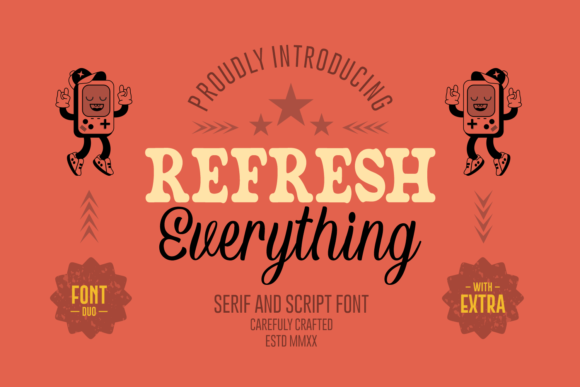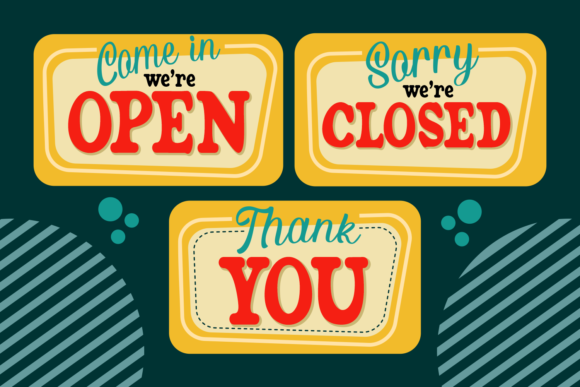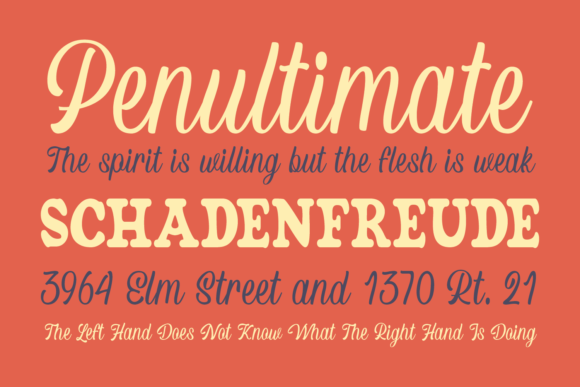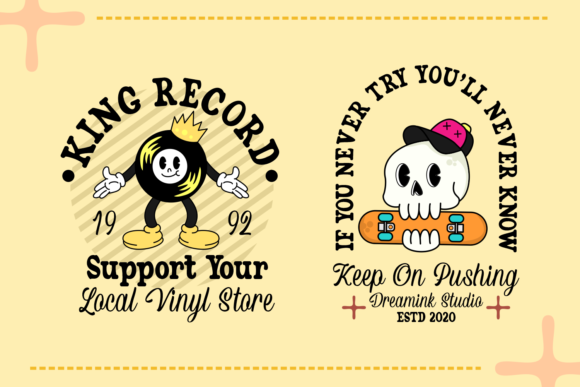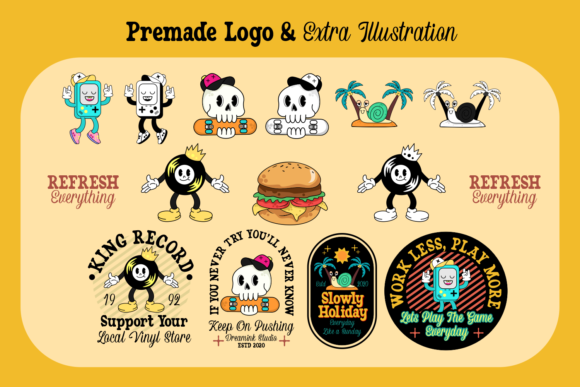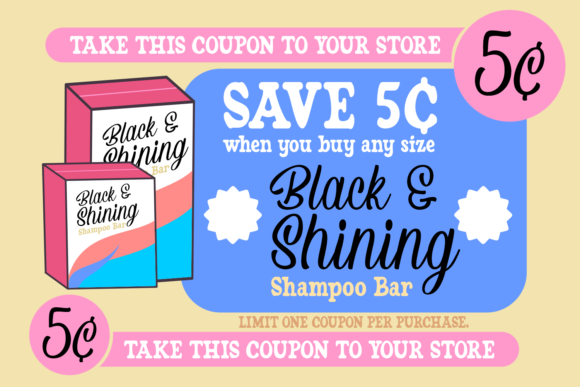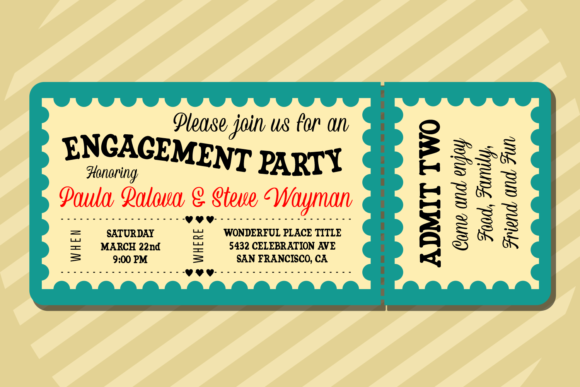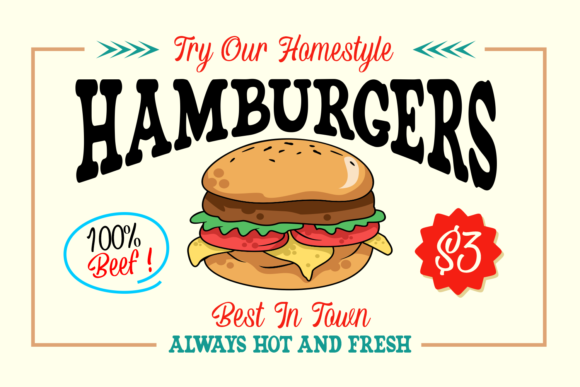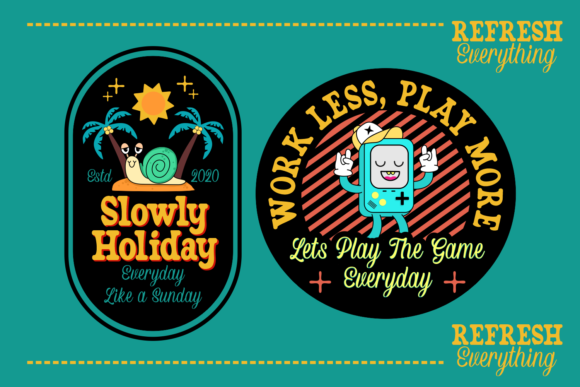
Refresh Everything Font
Refresh Everything is a modern handwritten font ready to be used in your next projects
This font can be used in a wide variety of applications from logos, book covers, t-shirt designs and more, the only limit is your imagination!